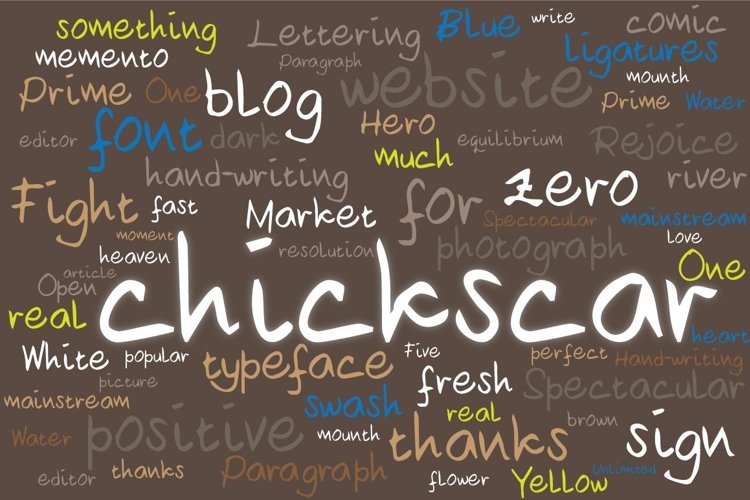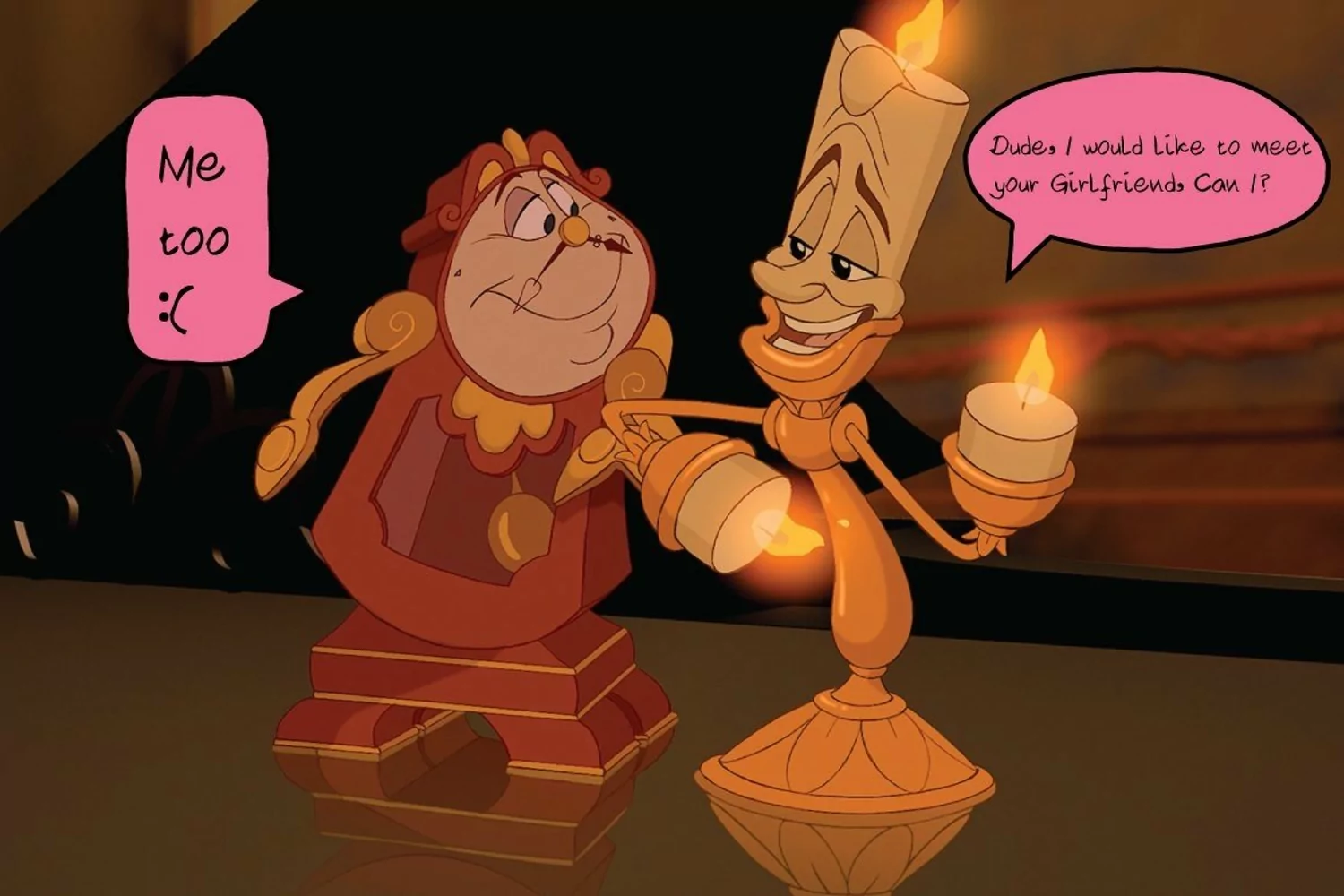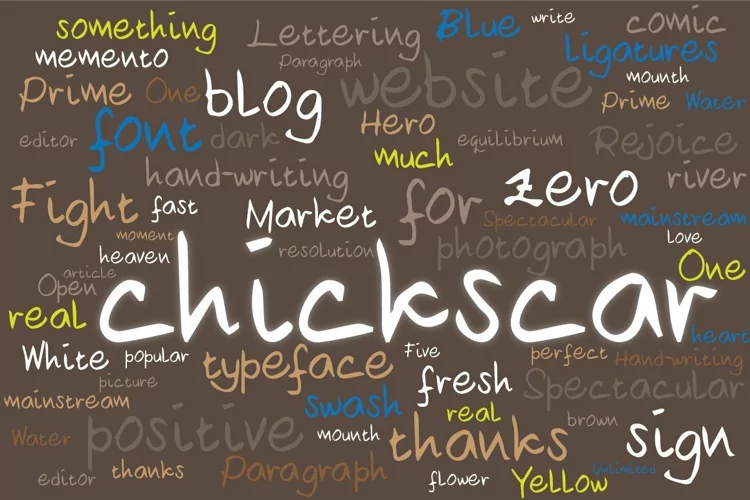
Introducing "Chickscar Handwriting Typeface" Can be used for various purposes namely headings, logos, wedding invitations, t-shirts, letterheads, signages, labels, news, posters, badges etc. Product Content:Chickscar Web Font (woff) Features: Uppercase Lowercase Numeral & Punctuations Use a program that supports OpenType features such as Adobe Illustrator CS, Adobe Indesign & CorelDraw X6-X7 to access the full features of this typeface. How-to pdf included in the package. Feel free to contact me for additional supports.